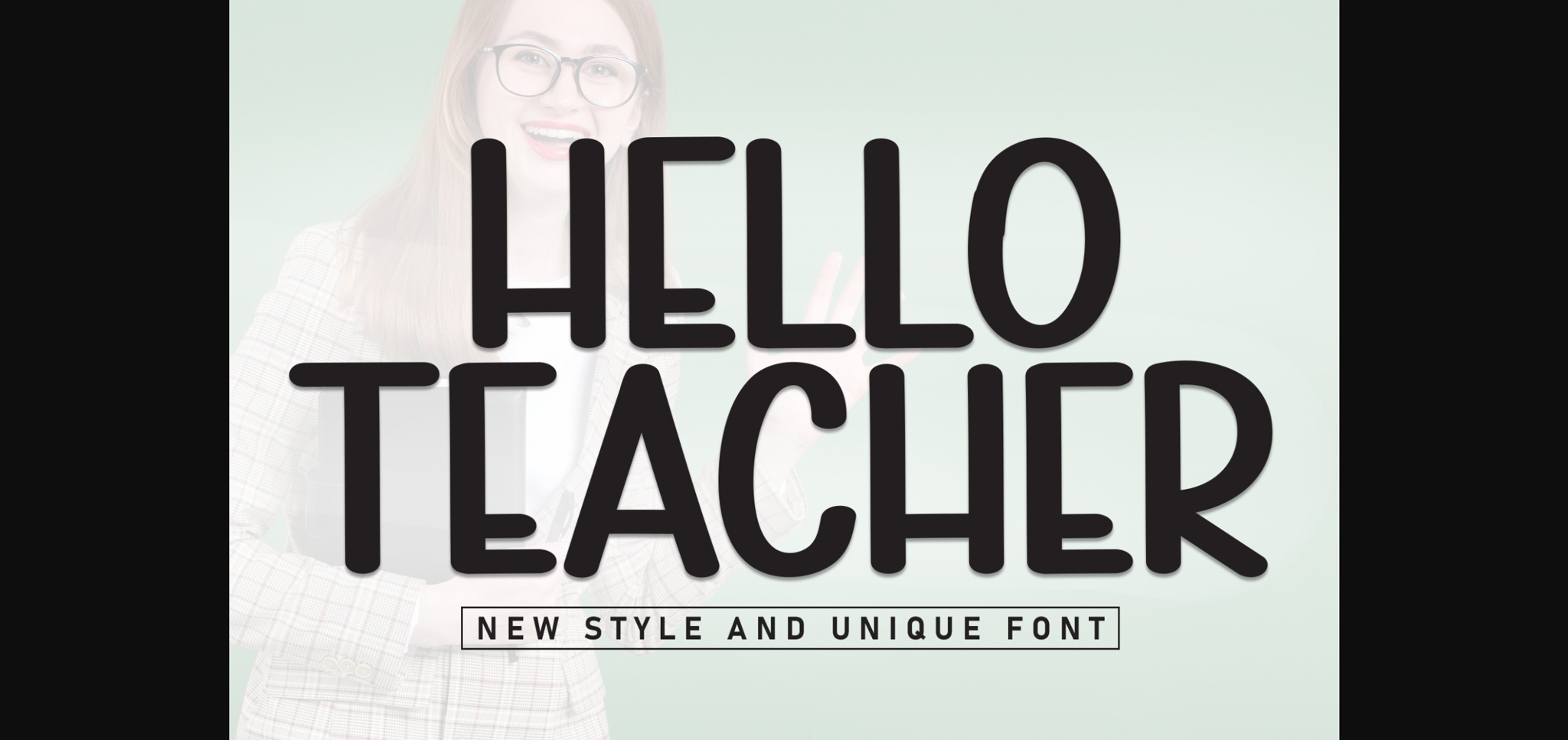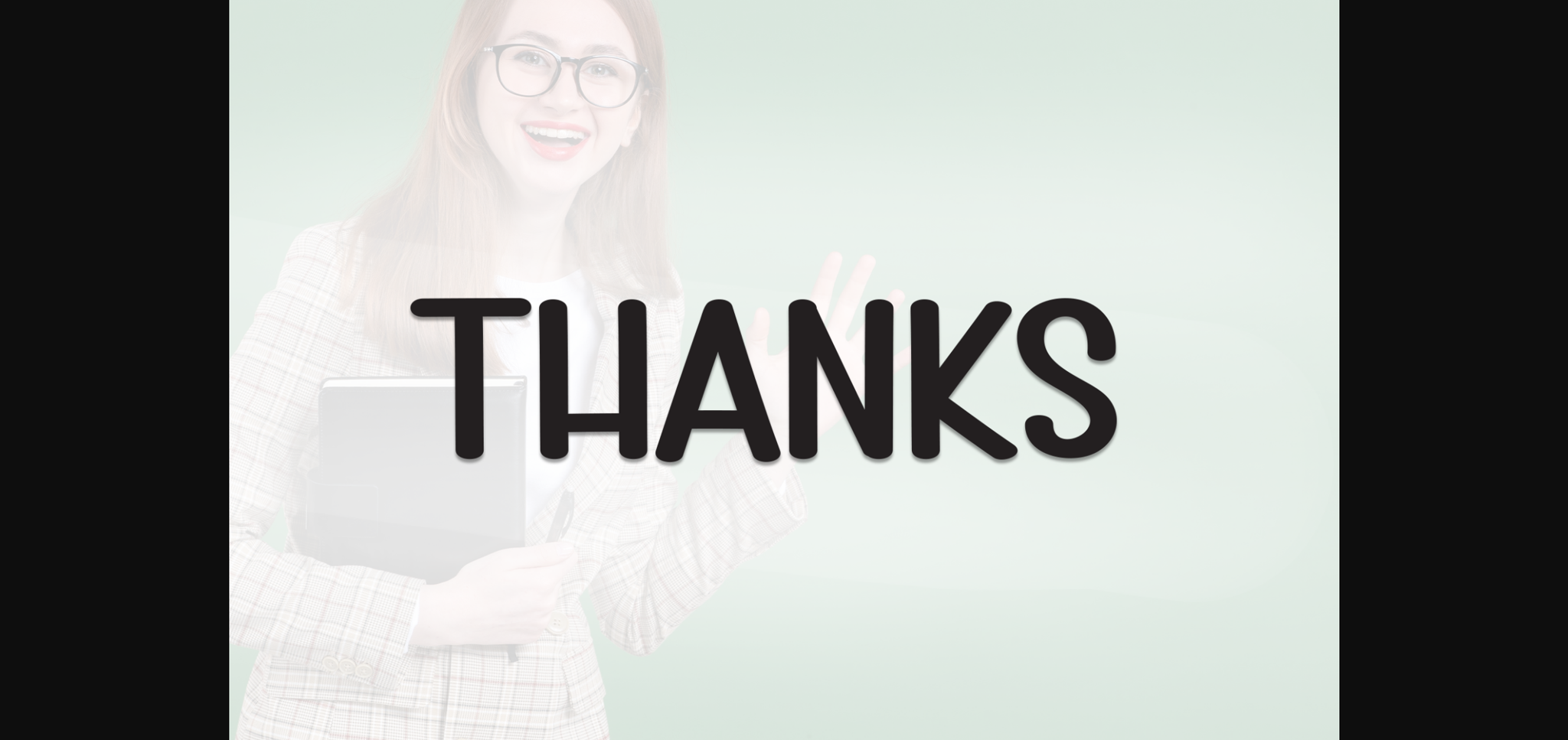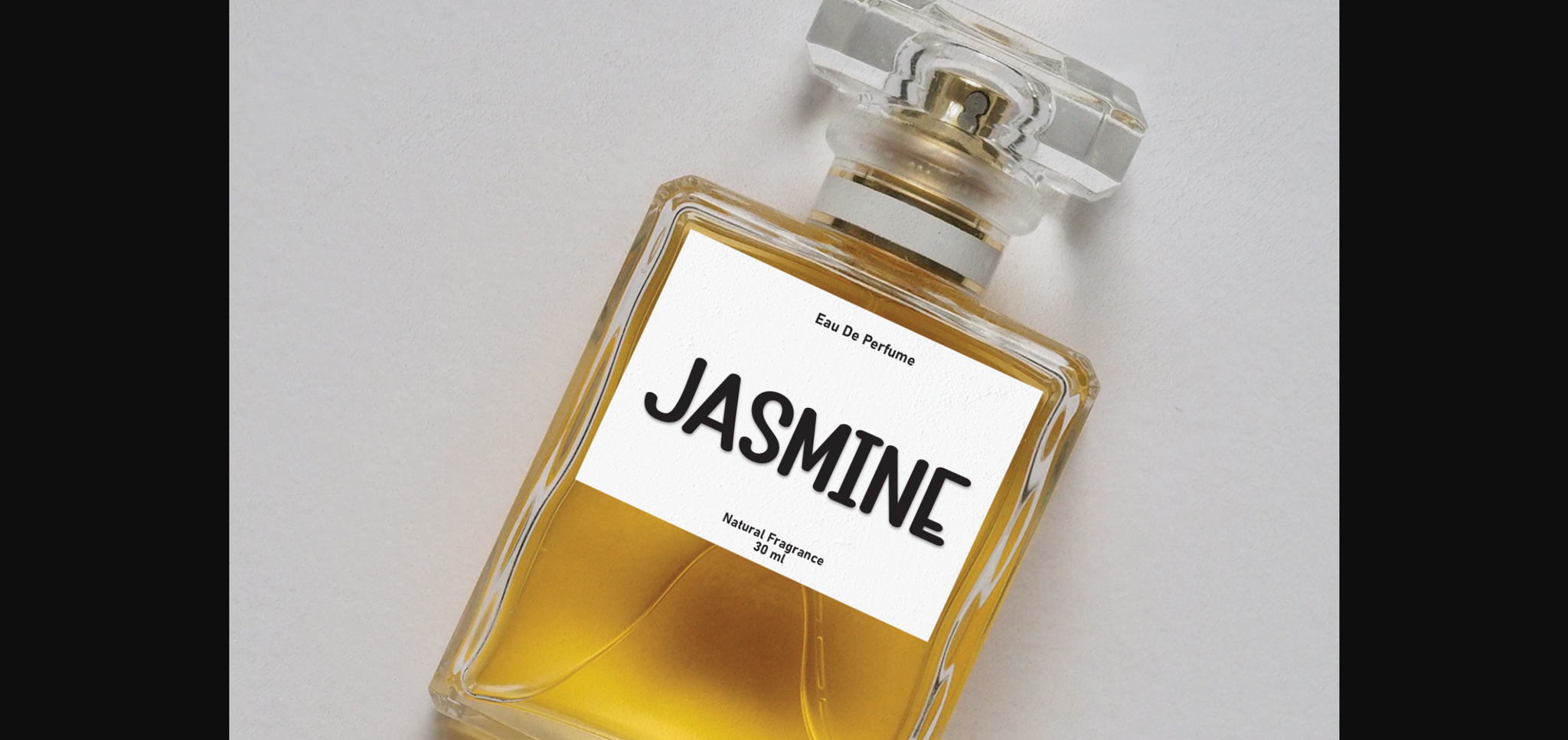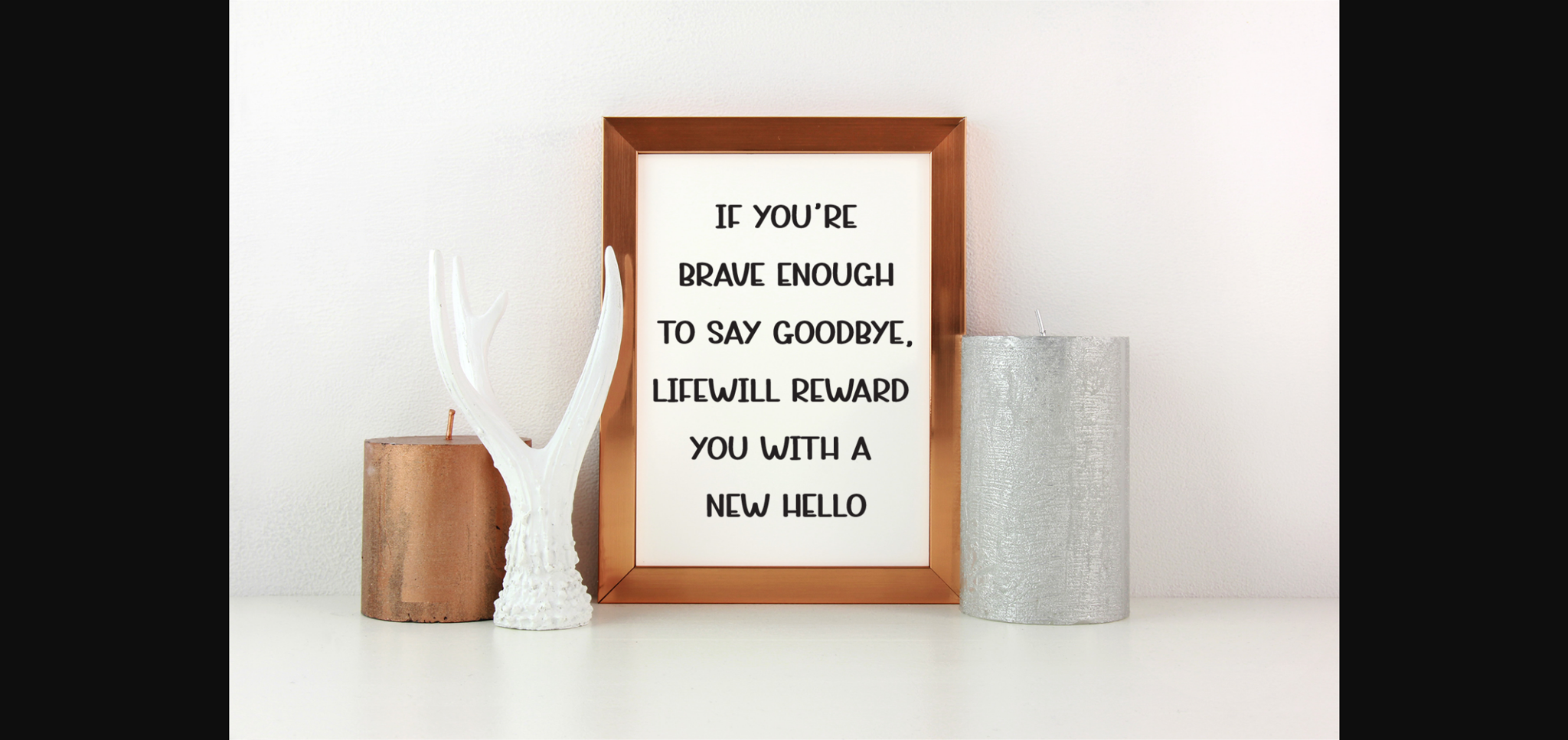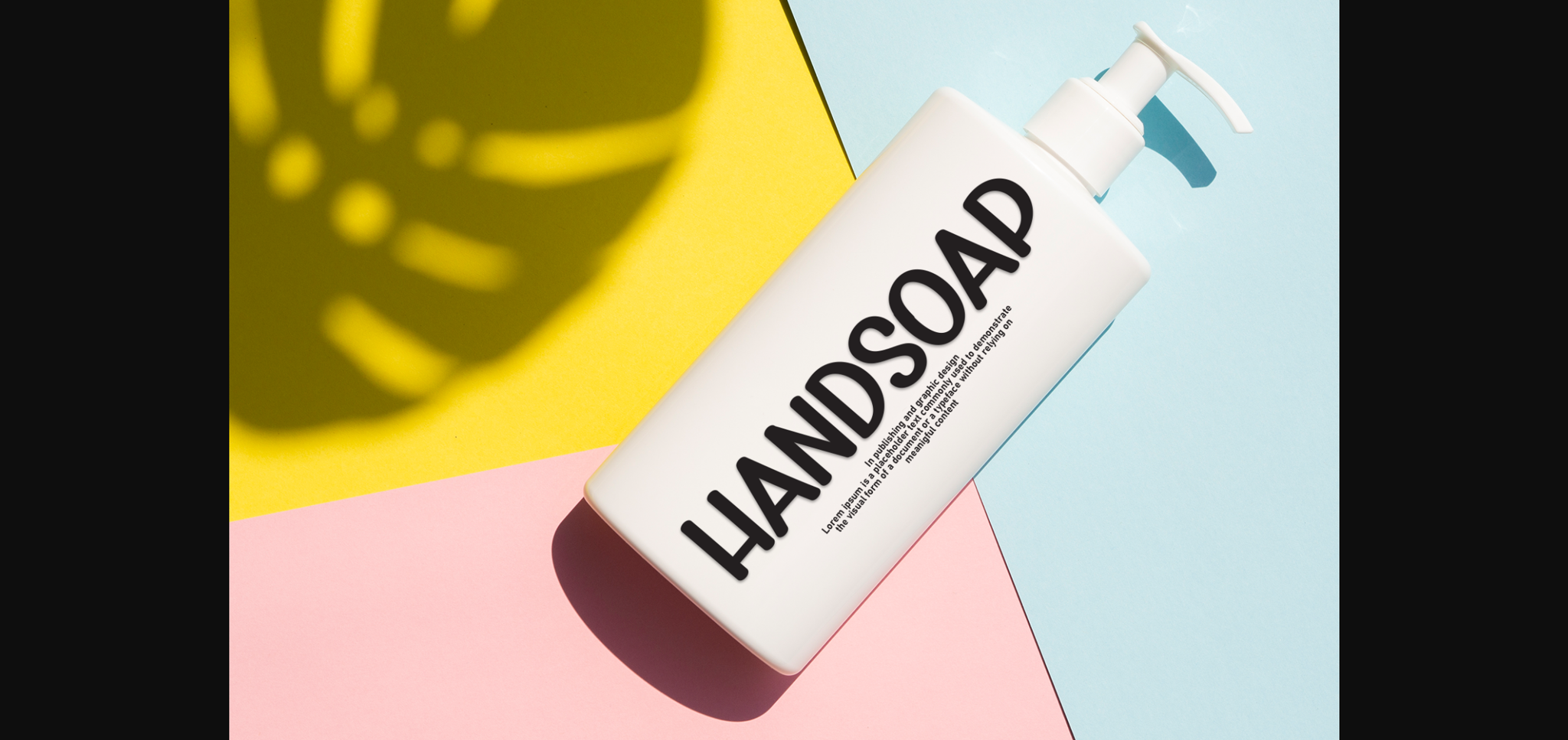
Helloteacher Font
About Helloteacher Font
Helloteacher is a sweet and friendly sans-serif font. Cute yet versatile, this font is ideal for writing wedding invitations, cards, or any other design that might need a fresh touch!